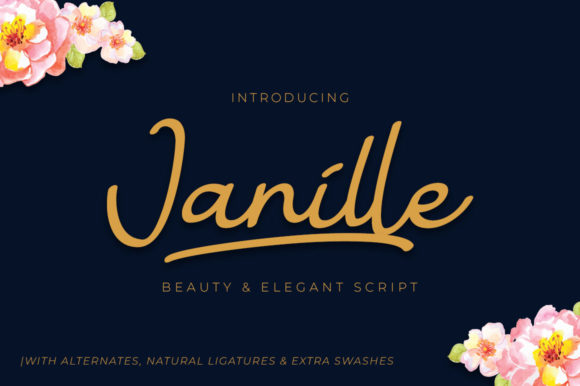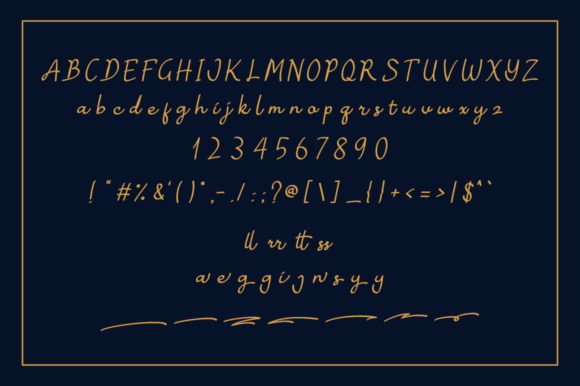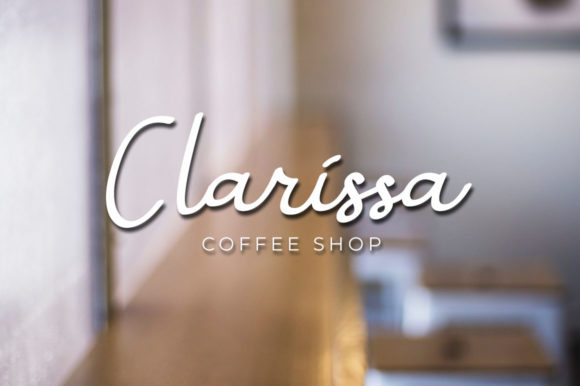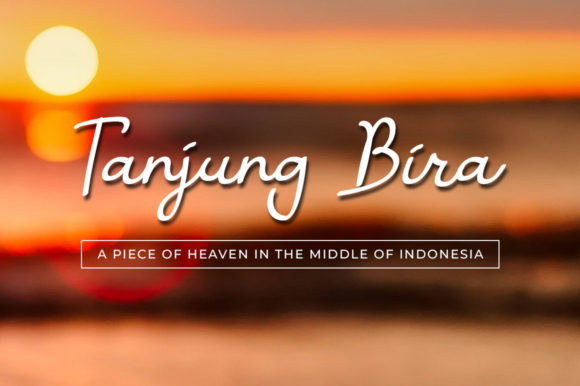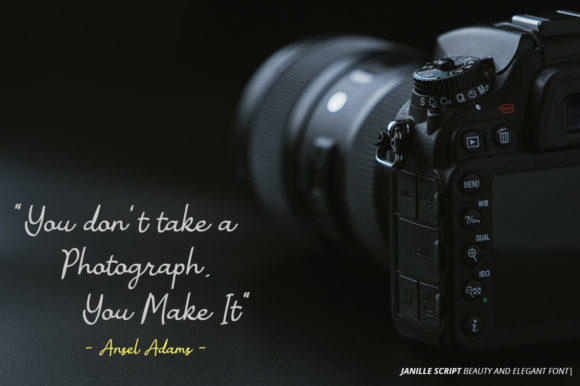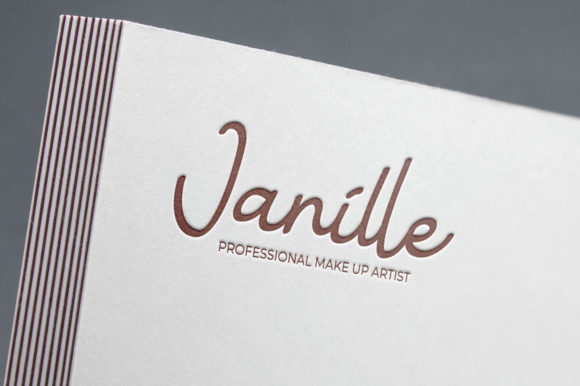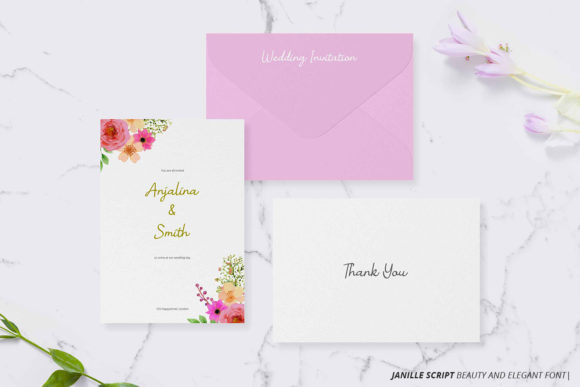
Janille Font
About Janille Font
The Janille is a beautiful script font. Its handwritten style is perfect for logos, wedding invitations, birthday cards, quotes, headlines, posters, and every other design which needs an elegant typeface.